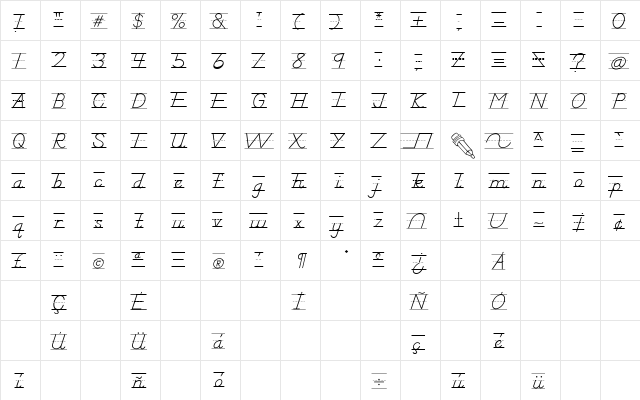
AbcDNManusLined Regular
Design Context for AbcDNManusLined Typeface
AbcDNManusLined takes a measured approach to typography — its balanced proportions and neutral character make it a reliable workhorse for both digital and print work.